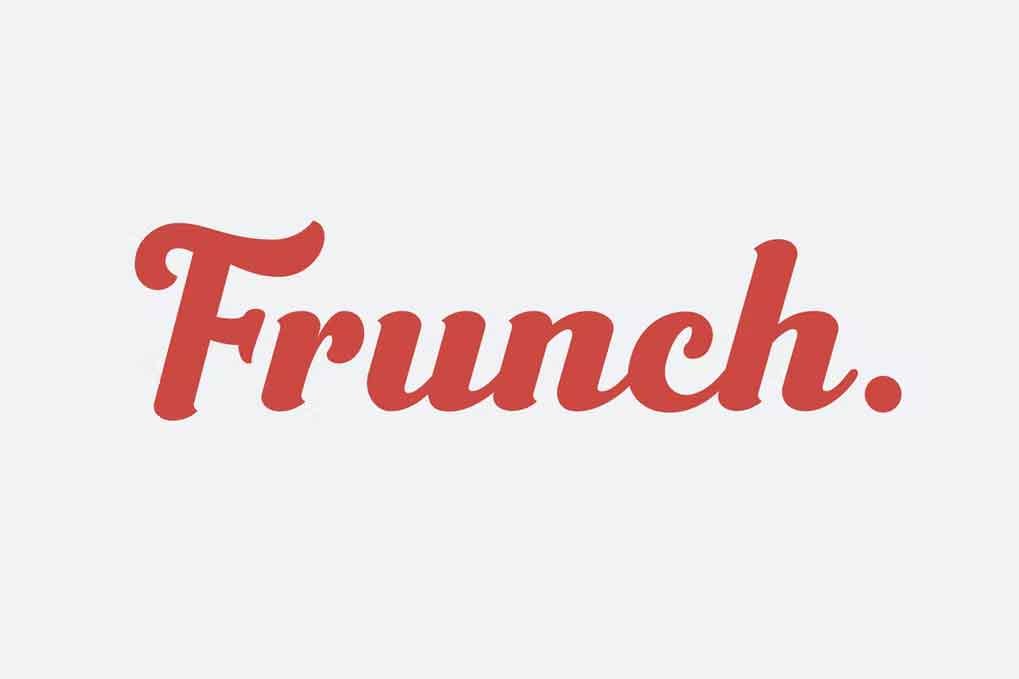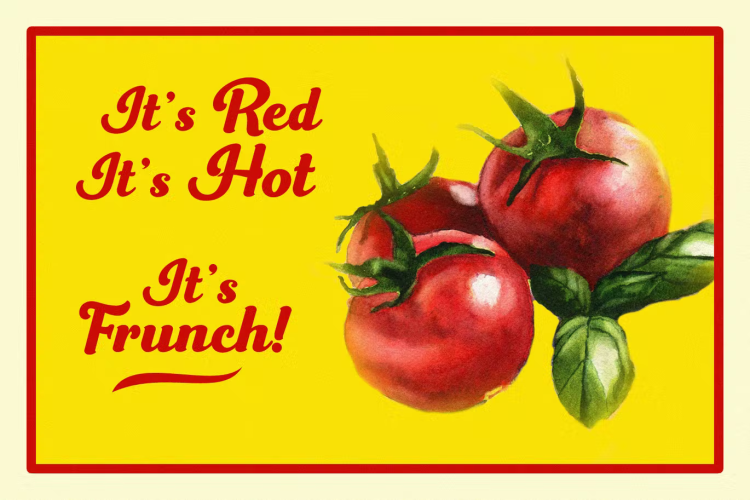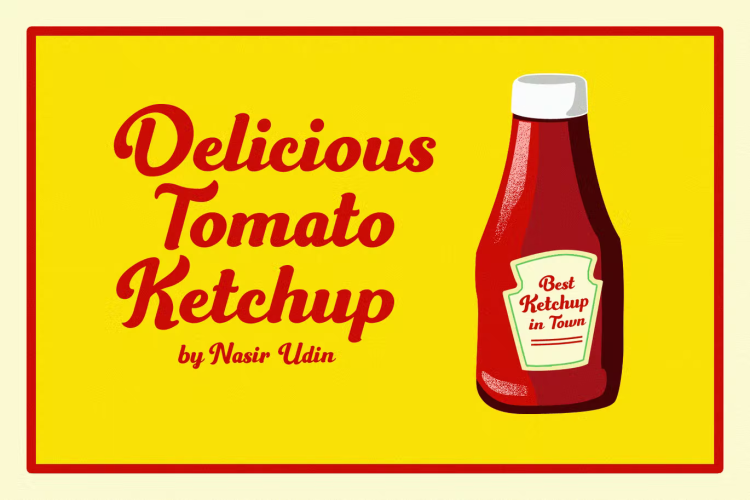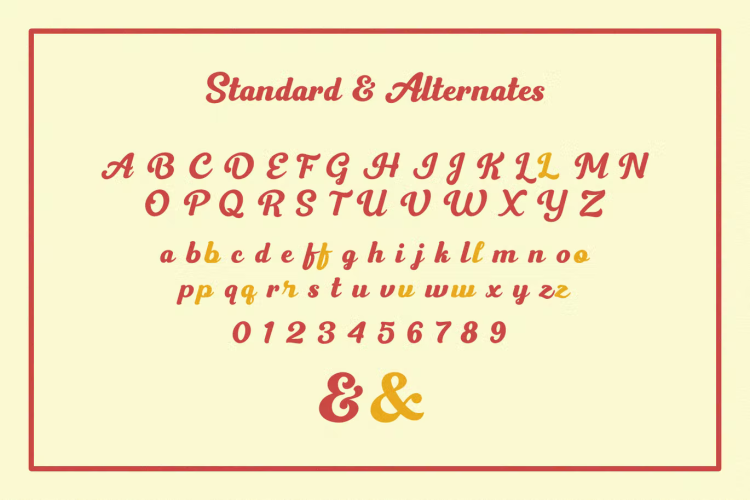
Frunch Font
Starve for tasty bold font? Say hello to Frunch! A delicious bold script font with a vintage vibe.
Frunch comes to you with several alternate letters for you to play with and the complete set of lowercase-letter swashes that make your words look delicious and stand out.
It’s especially created for food & beverages branding as well as product packaging typography (e.g.: snack, honey, breakfast meal, milk, bread and cake). It’s also perfect for poster, business cards, headline, restaurant menus, and much more.
Frunch Font is a Script And Handwritten font that brings a professional and versatile look to your projects. Starve for tasty bold font? Say hello to Frunch!.